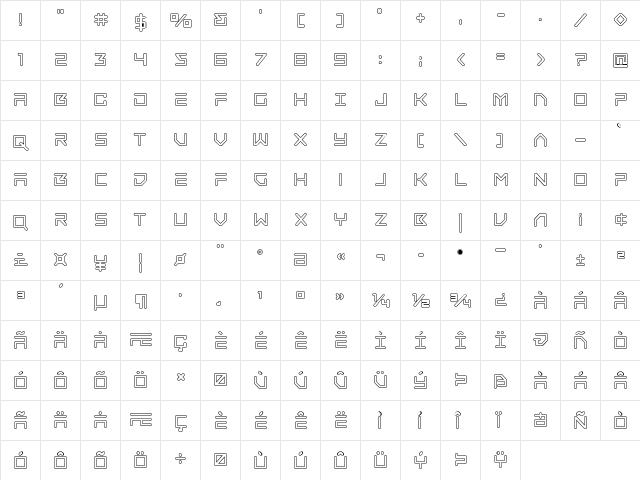
Tempest Apache Outline
Design Context for Tempest Apache Outline Typeface
Tempest Apache Outline brings ornamental detail and strong personality to headlines and identities, where visual impact matters more than quiet functionality.
Font Pairing: Pair with a clean neutral sans-serif for body copy to let Tempest Apache Outline's character lead without overwhelming the composition.
Pro Tip: Treat Tempest Apache Outline as the centrepiece of your typographic hierarchy. One strong heading set in a decorative face can carry an entire layout.